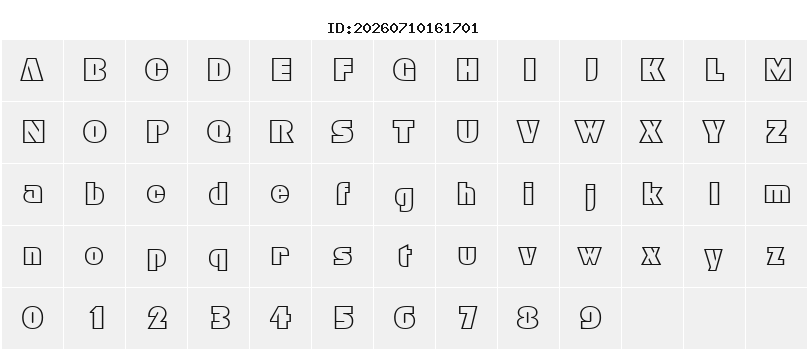
• Font Name: Geometr885 BT
• Font ID: Geometric 885
• Full Font Name: Geometr885 BT
• Version: Version 2.001 mfgpctt 4.4
• PostScript Name: Geometric885BT-RegularD
About Geometr885 BT.ttf
Geometr885 BT.ttf is a modern, elegant sans-serif font designed for ultimate readability and visual harmony. Perfect for branding, headlines, web design, and print materials.